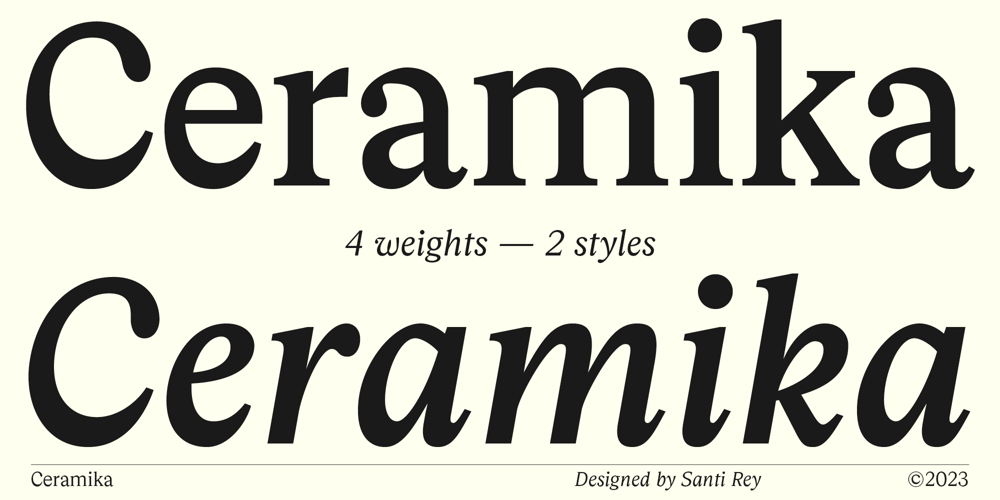
Ceramika
Ceramika font
Ceramika Font Family was designed by Santi Rey and published by Santi Rey. Ceramika contains 8 styles and family package options. Ceramika is a modern tribute to Old Style typefaces. This design is inspired by the letterforms of the serif faces found in history books from the beginning of the 20th-century.Its sturdiness and generous X-Height makes it bold and compact; while the high-contrast strokes and recognisable shapes makes it extremely readable. All this makes Ceramika a really versatile font, perfect for logos, headlines and even body copy.It comes in 6 different weights and 2 styles — Standard and Italic.